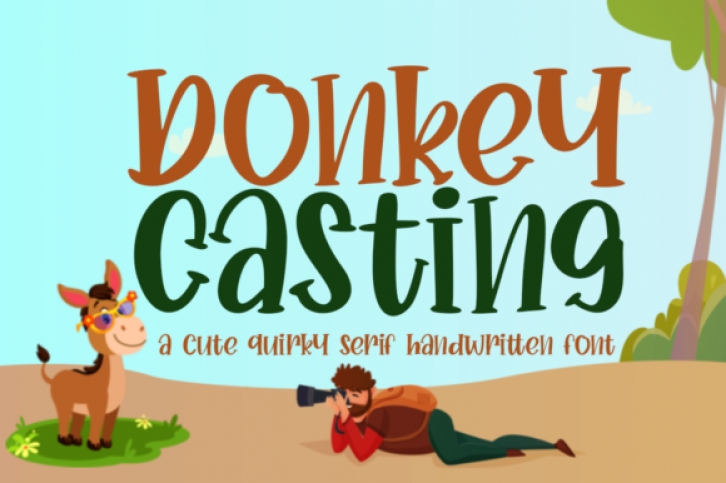
Donkey Casting is a magical script font carefully created with a touch of elegance. It features an incredibly classic style, while still keeping a friendly feel. Donkey Casting is the perfect font for making original and outstanding designs.